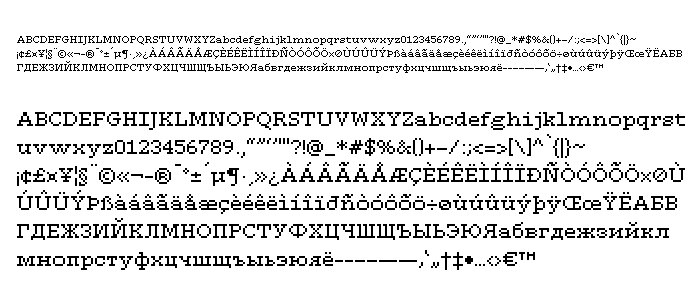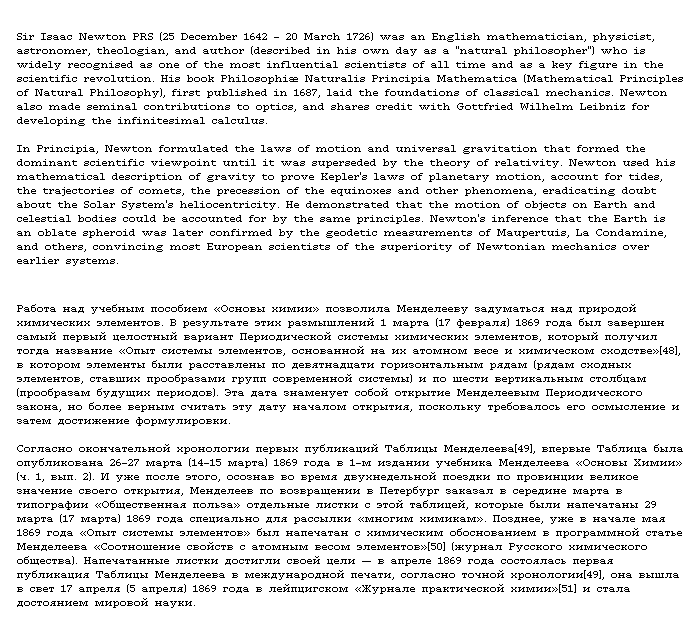
Character set, normal and magnified. Caps height: 7px, x-height: 5px, ascenders and descenders 2-2px respectively, diacritical marks: 3px, Total vertical dimension: 12px. Letter width: 3-9px. Spacing: 1px. No kerning.
Sample text:  English and Russian (Random samples from Wikipedia).